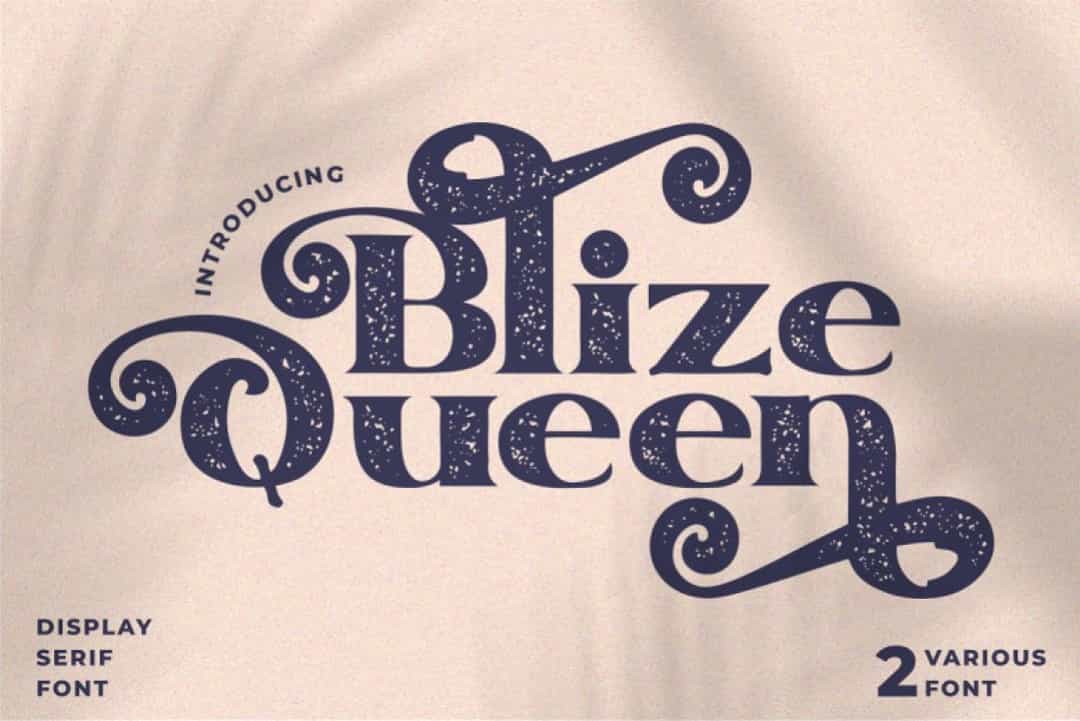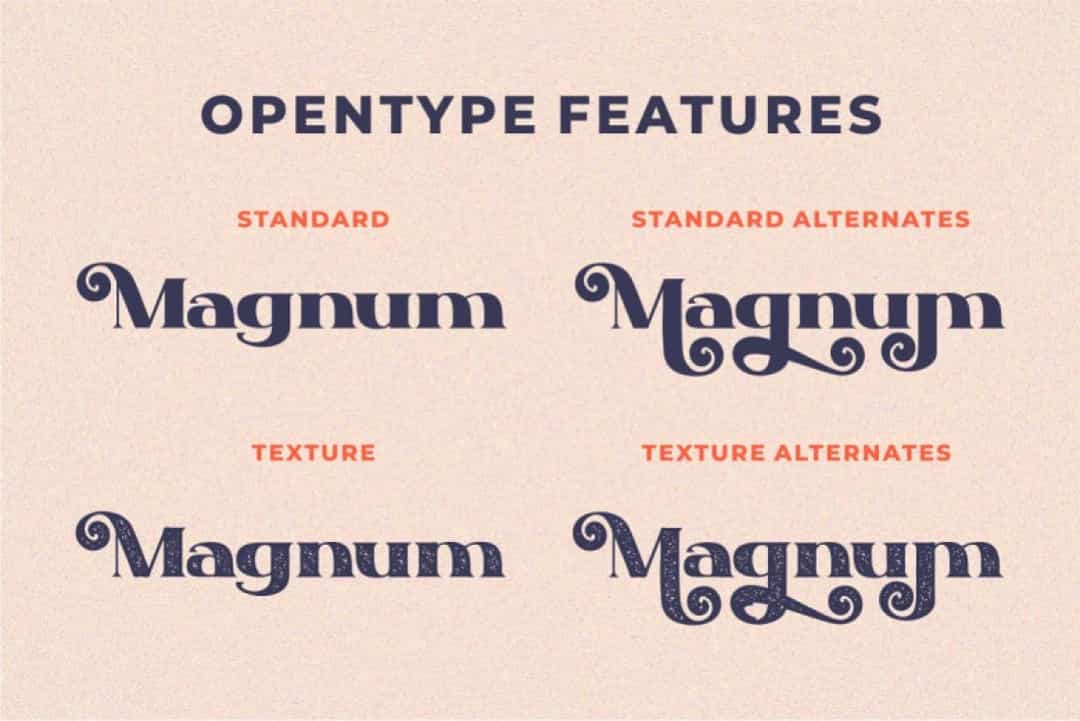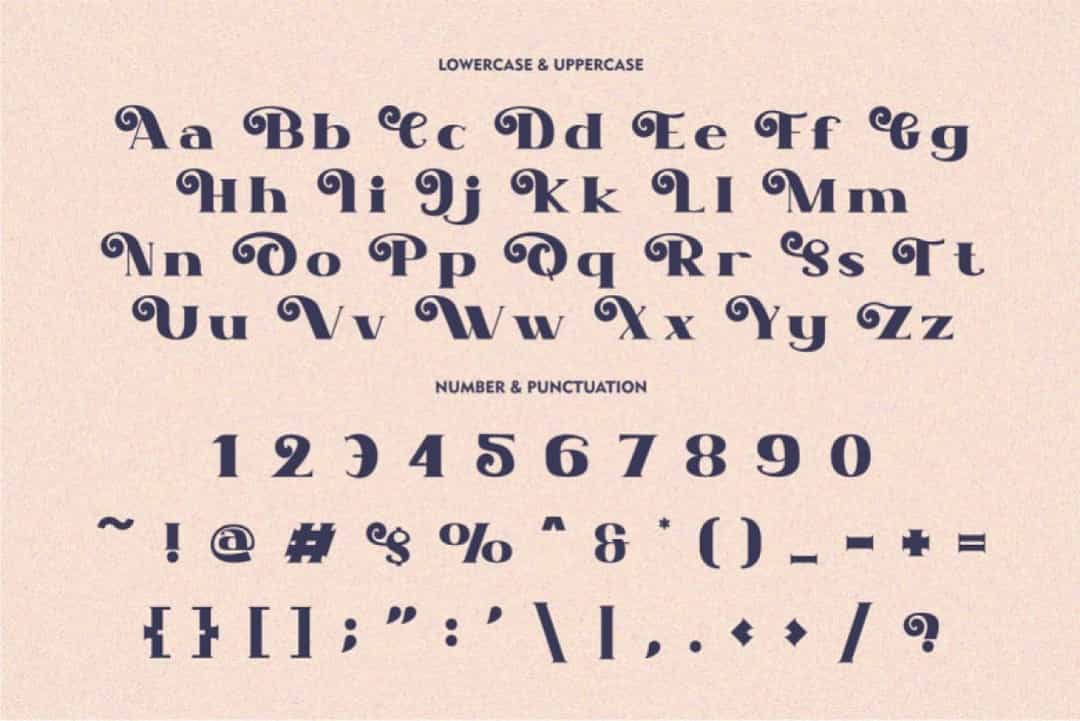
Blize Queen is an engaging display serif font with charming aesthetic and striking display falls, which works great both small and large sizes. Blize Queen can also be used to create layout designs in designs of the 60s and 70s; furthermore it includes gorgeous ligatures as well as multilingual support!